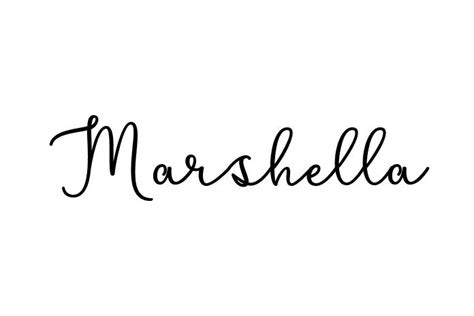
Marshella Font: A Comprehensive Guide to Design and Usage
Hey guys! Ever stumbled upon a font and thought, “Wow, this is exactly what I needed?” Well, let me introduce you to Marshella Font , a real game-changer in the world of typography. Whether you’re a seasoned designer, a budding enthusiast, or just someone who loves a good-looking font, this is your ultimate guide. We’ll dive deep into what makes Marshella Font so special, how to use it effectively, and where it truly shines. Get ready to level up your design game!
What Makes Marshella Font Stand Out?
So, what’s the big deal about Marshella Font ? Why should it be on your radar? It’s all about that unique blend of elegance and approachability. This font is a true work of art, carefully crafted with attention to every curve and detail. It’s the kind of font that instantly grabs your attention and adds a touch of sophistication to any project. Marshella Font effortlessly straddles the line between classic and modern, making it incredibly versatile. It’s not just about looking good; it’s about making a statement. One of the coolest things about Marshella Font is its versatility. It’s perfect for a wide range of applications, from creating eye-catching headlines to crafting elegant body text. Think about it: a wedding invitation with a touch of class, a website that feels both modern and inviting, or even a sleek logo that perfectly represents your brand. That’s the power of Marshella Font ! The carefully considered design elements make it visually appealing. The font often includes a variety of weights and styles, allowing you to fine-tune the look and feel of your text. Whether you need a bold, attention-grabbing headline or a subtle, refined paragraph, Marshella Font has got you covered. This is the difference. The attention to detail and versatility is part of the package. It’s designed to be readable, which is a key factor when selecting a font. The design isn’t just about looks. It’s designed to ensure it looks good and performs well, whether online or in print. Plus, the design often includes a number of unique features, such as ligatures (special characters that combine two or more letters for a more natural flow) and alternates (different versions of characters that add a touch of personality to your text). Overall, Marshella Font is a versatile and stylish choice. This font has character, and it’s the kind of font that can make or break a design.
Where to Use Marshella Font: Best Practices
Okay, so Marshella Font is awesome, but where does it really shine? Let’s explore some of the best use cases and best practices to help you make the most of this fantastic font. Think about how Marshella Font can elevate your projects. First, think about branding and logos. Marshella Font is fantastic for crafting logos that are both memorable and professional. Its elegant and sophisticated appearance makes it perfect for brands that want to convey a sense of luxury, style, or trustworthiness. Think high-end fashion, beauty products, or even boutique businesses. Using Marshella Font in your logo can make a strong first impression and set the tone for your brand. Next, think about headlines and titles. Want to grab attention? Marshella Font is your secret weapon for headlines. The font’s unique style commands attention and instantly draws readers in. Consider using it for website headers, magazine titles, or even social media graphics. The result? Your message will stand out and capture the reader’s interest. Moving on to website design, the font can create a visually stunning website that keeps visitors engaged. Choose a suitable font weight and size, and consider using it for headings, subheadings, and even body text. This will give your website a polished and professional look. Now, let’s talk about print materials. Think about how Marshella Font can make your print materials stand out. From invitations to brochures, this font adds a touch of elegance that can’t be beat. Use it for invitations, business cards, or any other printed material where you want to leave a lasting impression. Keep it simple and ensure readability when using Marshella Font in print. Finally, use it in social media graphics to create shareable content. Using the font to create quotes, announcements, and promotional graphics can significantly increase engagement. The unique style of this font will make your content more attractive and shareable. Remember, the key is to experiment and find what works best for your specific project. Play around with different weights, sizes, and styles to create a design that looks great and communicates your message effectively.
Tips and Tricks for Using Marshella Font Effectively
Alright, let’s get into some pro-tips to help you master the art of using Marshella Font . This is where we take your design skills to the next level. The key is to find that perfect balance of style and usability. First and foremost, always consider readability. While Marshella Font is beautiful, it’s also crucial that your text is easy to read. Make sure the font size is appropriate for the context. This goes a long way. Always test different sizes to find the ideal balance between aesthetics and readability. This makes the design process much easier. Now, let’s talk about pairing the font. Pairing Marshella Font with other fonts is an art in itself. Choose a complementary font for body text that pairs well with the overall style. Think about the mood and message you want to convey. A good pairing can enhance readability and create a more cohesive design. Try combining Marshella Font with a clean, sans-serif font for body text to maintain a balance of style and legibility. Next up is the spacing and kerning. Spacing and kerning can make a world of difference. Proper spacing and kerning are essential for creating visually appealing and readable text. Adjust the letter spacing to ensure the characters aren’t too close together or too far apart. Fine-tuning the spacing will improve the overall look of your text. Consider using a program to help manage all the kerning. Always make sure to preview the font in your design. Finally, consider the color. Color plays a massive role in design, and choosing the right colors can greatly enhance the impact of Marshella Font. Pair the font with colors that complement its style. For example, use it on a soft background, which will make it pop. Always make sure the colors you choose match the tone and message you want to convey. By following these tips and tricks, you’ll be well on your way to creating stunning designs with Marshella Font.
Alright, let’s take a quick look at the evolution and current trends surrounding Marshella Font . Understanding the historical context and staying updated on current trends can give you a better grasp of how to use this font effectively and creatively. The evolution of this font has seen a shift toward more minimalist and modern styles. Early versions were often more elaborate. Today, the design focuses on balance and simplicity. Designers have been leaning towards cleaner lines and improved readability. Modern trends emphasize versatility and adaptability. Marshella Font has adapted to these trends. Current trends also reflect a growing appreciation for unique design. Designers are constantly pushing the boundaries of what is possible. It’s important to experiment with different weights, styles, and combinations. Now, let’s explore how it fits into the broader design landscape. As technology advances, digital design is more important than ever. The increasing emphasis on user experience is driving trends. The popularity of mobile-first design continues to influence design choices. The font remains a relevant choice, as it can be adapted across devices. It allows for a more personalized experience. Designers are prioritizing accessibility and inclusion. Designers are also incorporating animation and interactive elements. Always stay updated on these new trends. By keeping up with these trends, you’ll be able to create designs.
Conclusion: Embrace the Beauty of Marshella Font
Alright, we’ve covered a lot of ground today! From understanding the unique features and versatility of Marshella Font to mastering its usage and navigating the licensing details. We’ve taken a deep dive into what makes this font so special. Remember, the true beauty of Marshella Font lies in its ability to transform designs. So, embrace the font and its potential. As you embark on your design journey, keep in mind these key takeaways: first, use the font for what it’s best at, like for headlines and logos. Second, practice. Don’t be afraid to experiment with different styles. Finally, always stay updated on current design trends. This will keep your designs fresh. So go out there and create something amazing. Happy designing, everyone!